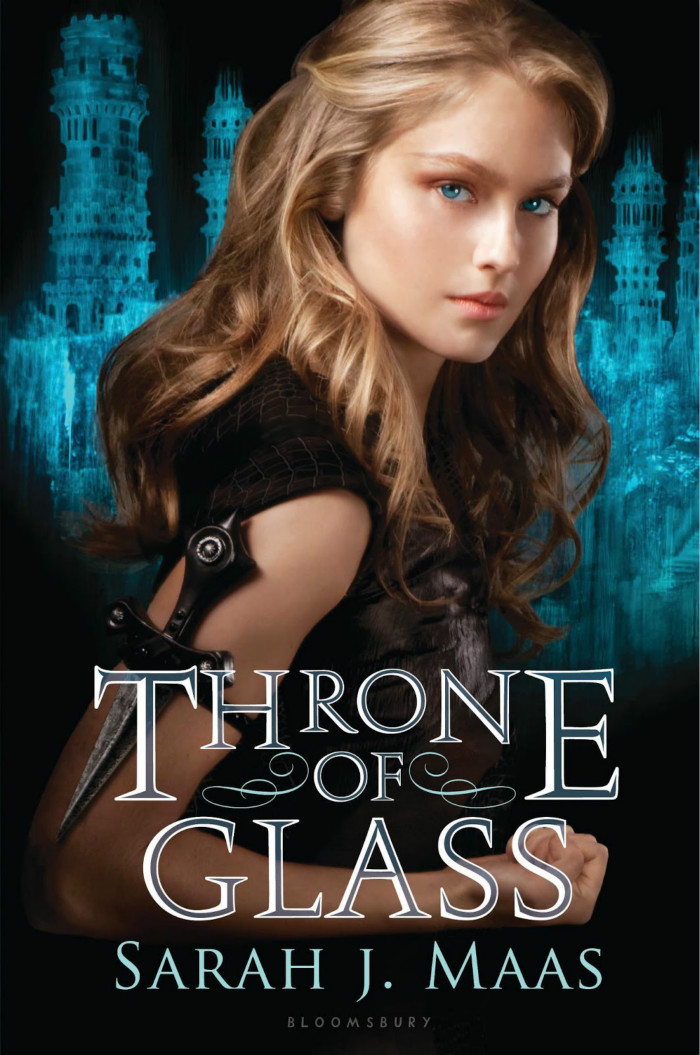
Throne of Glass Font
AdventureThrone of Glass is a young adult fantasy novel series written by Sarah J. Maas. It follows the journey of a young assassin named Celaena Sardothien as she navigates the treacherous world of the kingdom of Adarlan and fights to reclaim her throne as the rightful queen.
Augustea Open is most likely the font used for the book title in the cover. It's an all-capital inscribed font designed by Alessandro Butti and Aldo Novarese. This font is based on the traditional Capitalis proportions, which were prevalent in the first century AD during Augustus' era. The balanced, regal, and classic appearance of Augustea sets it apart.